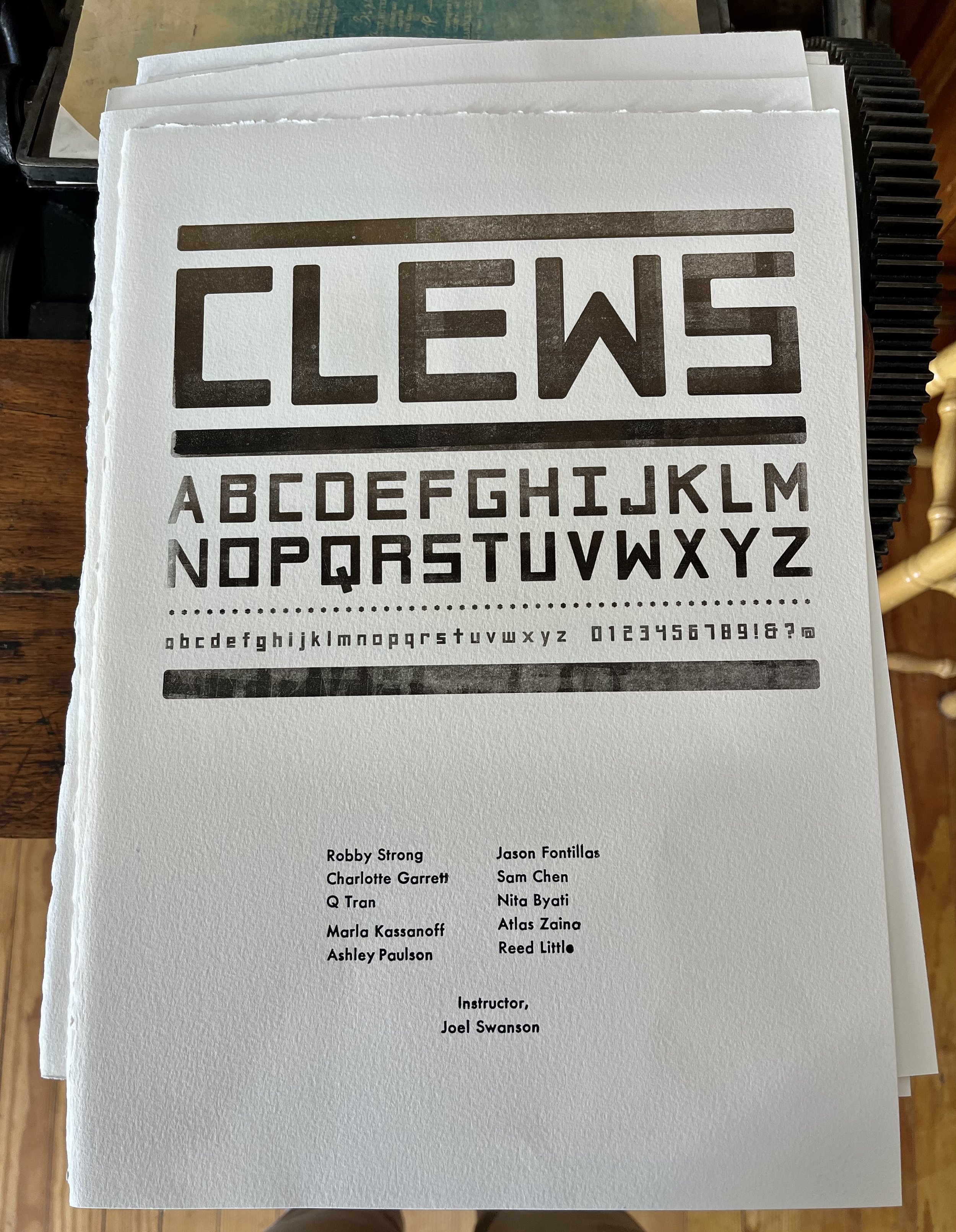
Clews Collaborative Typeface
DESIGNERS: Nita Byati, Sam Chen, Jason Fontillas, Charlotte Garrett, Marla Kassanoff, Reed Little, Ashley Paulson, Robby Strong, Q Tran, Atlas Zaina
Inspired by hand-carved lettering at the Château de la Napoule, this collaborative typeface was designed by the Fall 2023 Experimental Typography course. Each student was assigned a subset of the standard glyph set for Latin fonts.
Once completed, we designed and printed type specimens at the Book Arts League. The typeface was printed using a custom polymer plate and the student’s names were handset in 14 pt. Futura Bold.